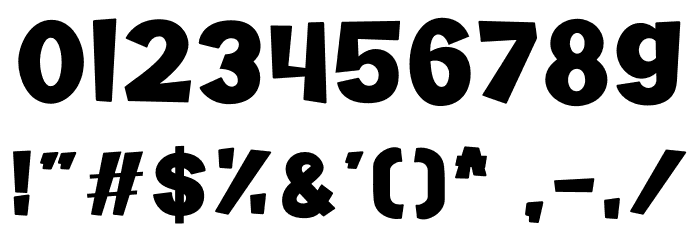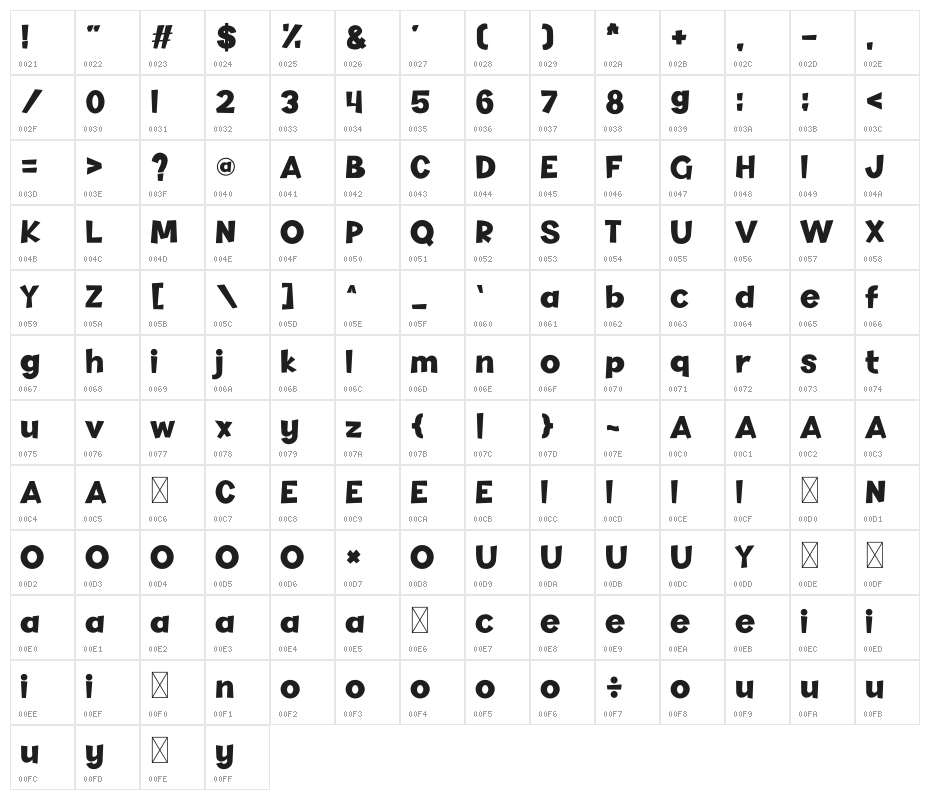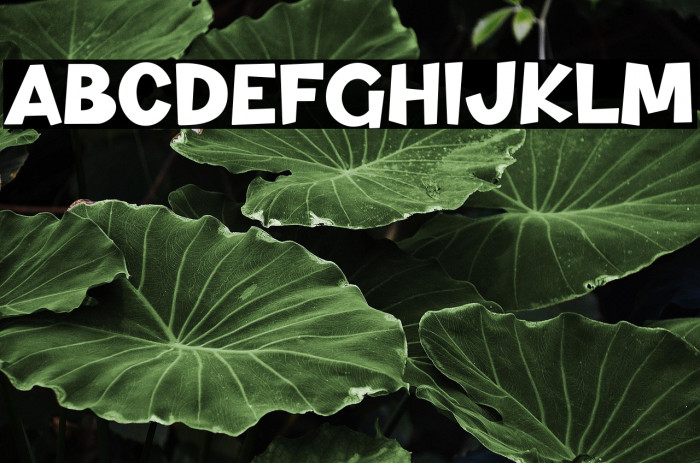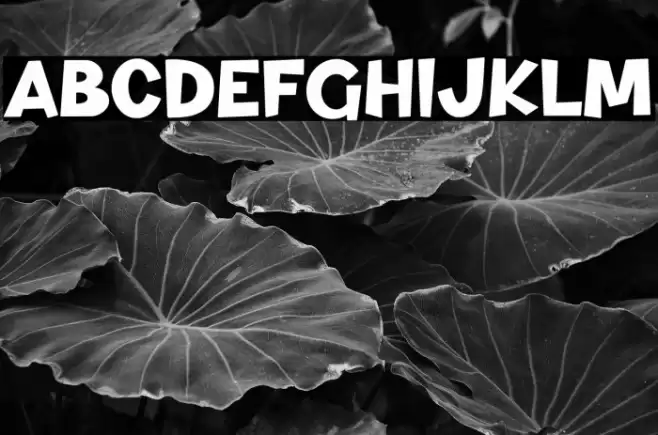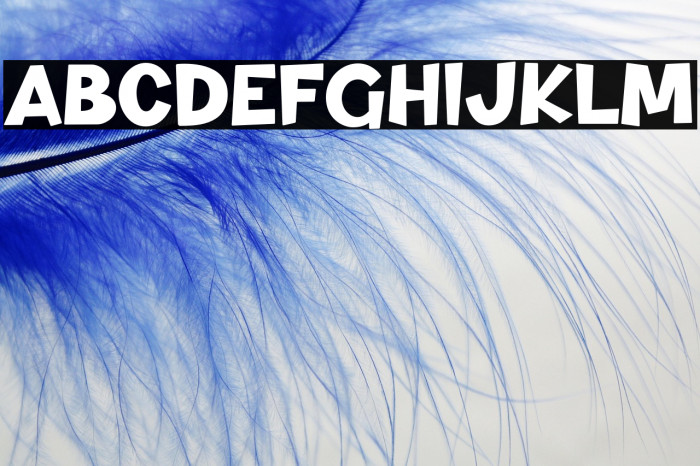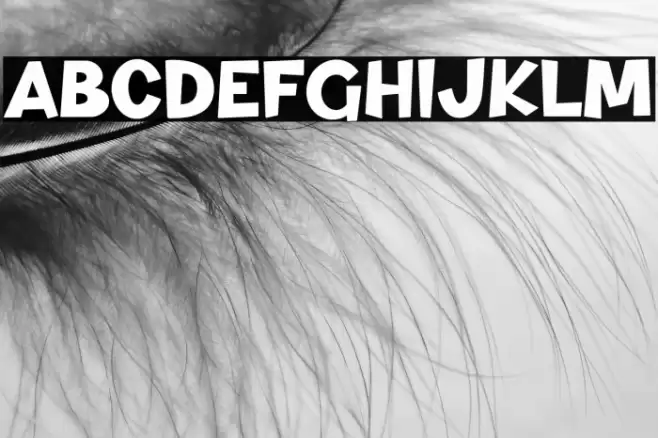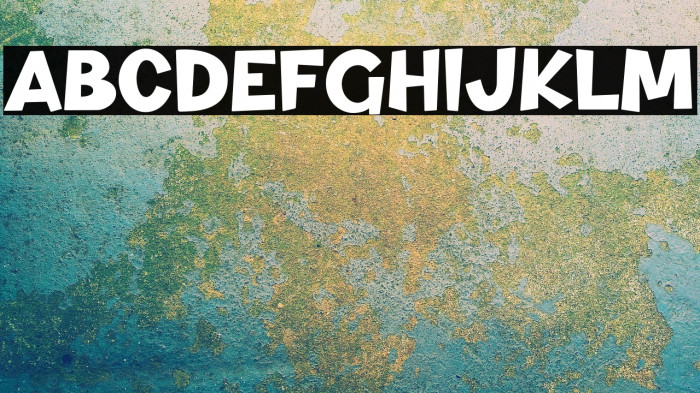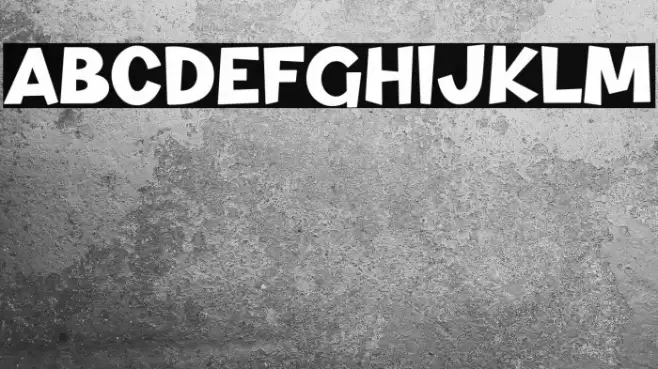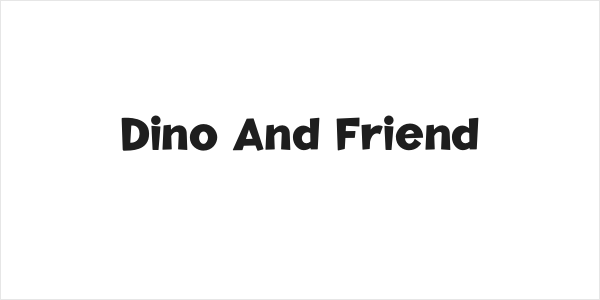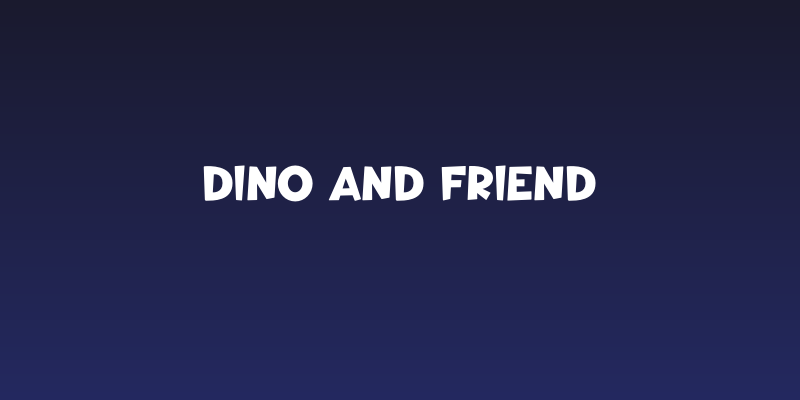
Dino And Friend Font
Dino And Friend Description
This playful and bold typeface features a whimsical, cartoonish style with exaggerated curves and a slightly uneven baseline, giving it a lively and dynamic appearance. The uppercase letters are robust and commanding, while the lowercase letters maintain a consistent, rounded form that complements the overall aesthetic. The numerals are equally bold, ensuring visibility and impact. Special characters are designed with the same playful flair, making them suitable for creative projects. The font's thick strokes and lack of serifs contribute to its friendly and approachable vibe, making it ideal for children's materials, playful branding, or any project requiring a touch of fun.
| Overall Style | Playful, Cartoonish |
| Proposed Projects | Ideal for children's books, playful branding, posters, and creative projects. |